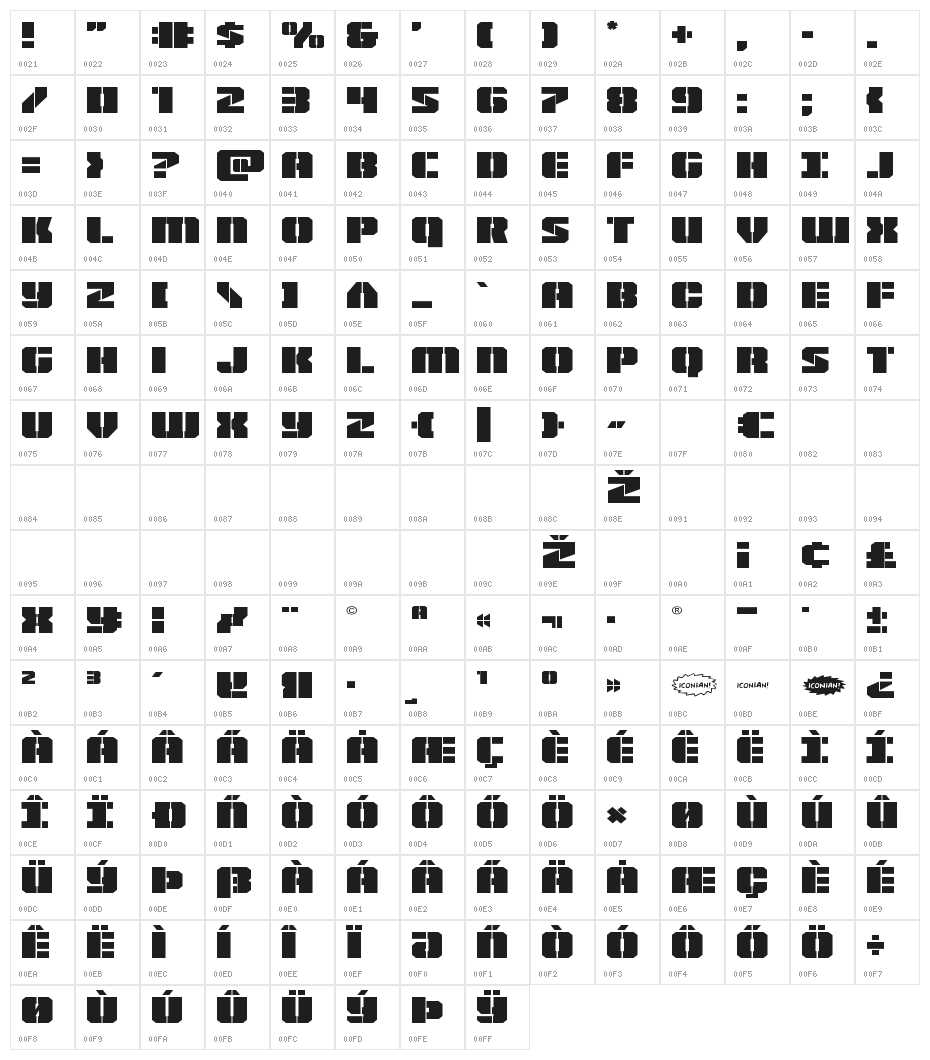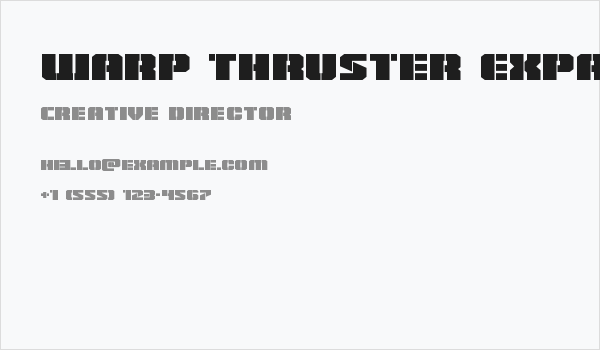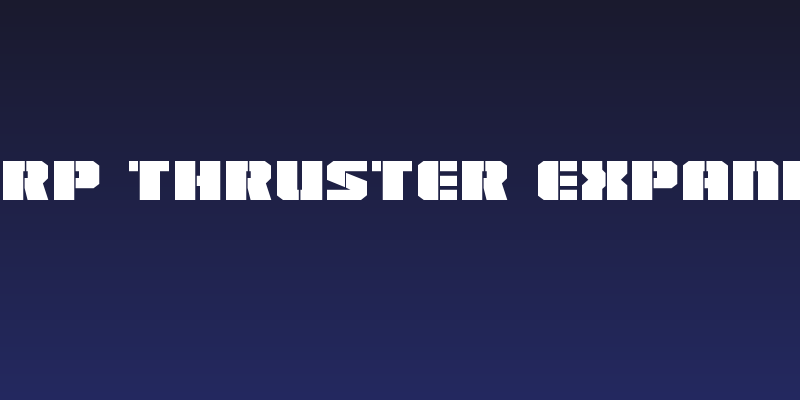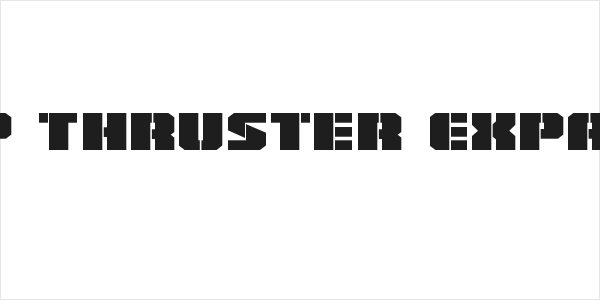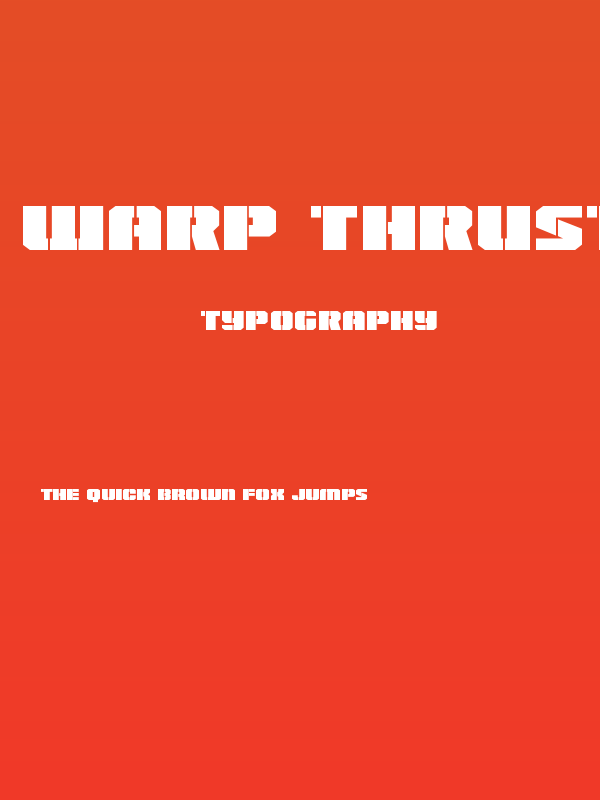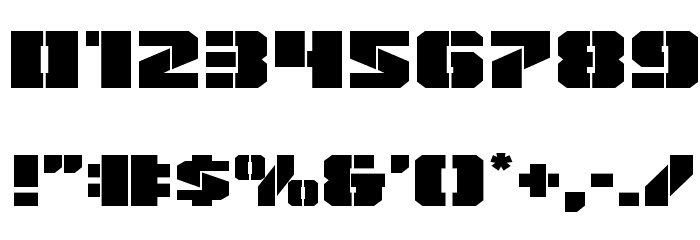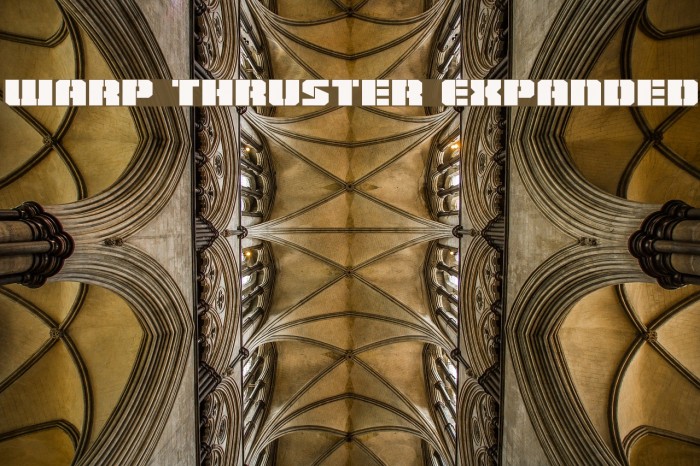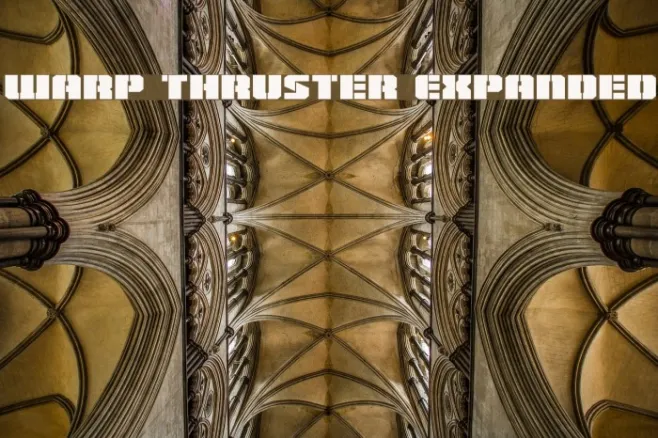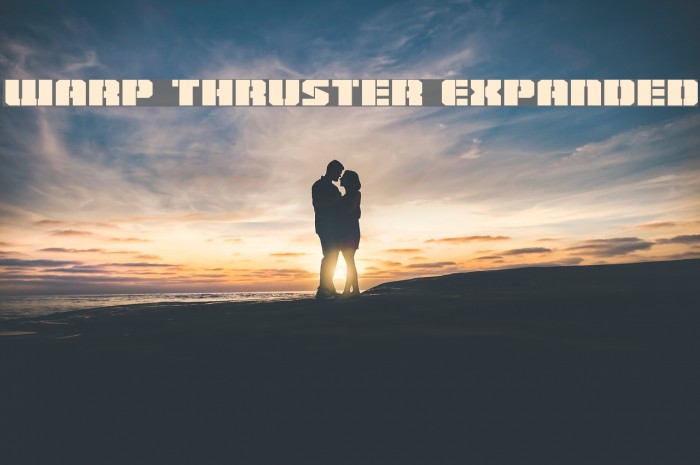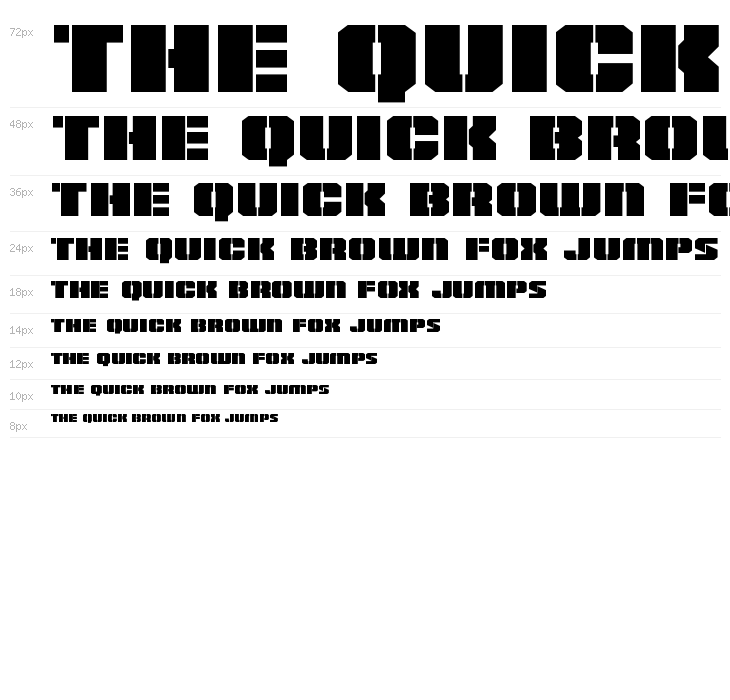
Warp Thruster Expanded Font
Warp Thruster Expanded Description
This font features a bold, futuristic design with a distinctly geometric and angular style. The characters are composed of thick, block-like shapes with sharp edges, giving it a strong and impactful appearance. The font maintains a consistent weight throughout, with minimal contrast in stroke thickness, emphasizing its robust and solid form. The spacing between characters is tight, enhancing its compact and cohesive look. This font is ideal for projects that require a modern and industrial aesthetic, making it suitable for technology-related themes or sci-fi inspired designs.
| Overall Style | Futuristic, Industrial |
| Proposed Projects | Ideal for technology branding, sci-fi posters, video game titles, and industrial-themed designs. |